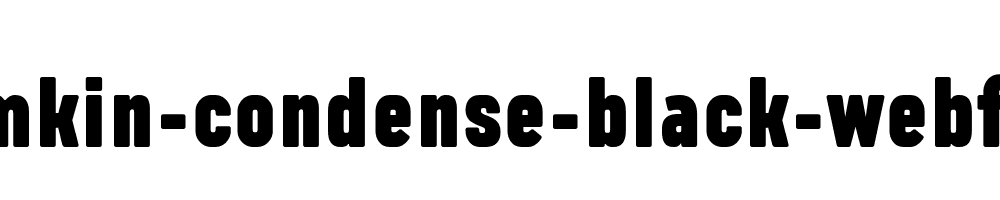
About tomkin-condense-black-webfont
The tomkin-condense-black-webfont is a bold and striking font that commands attention with its strong weight and condensed structure. The font features sharp angles and clean lines, giving it a modern and sleek appearance. The closed counters and sharp apex add to the font’s edgy and expressive nature, making it perfect for design projects that require a touch of boldness and sophistication. The font’s minimalistic design and lack of any extraneous elements contribute to its overall elegance and precision, exuding a sense of professionalism and refinement that is sure to leave a lasting impression. Classified as Serious – Friendly, the tomkin-condense-black-webfont strikes the perfect balance between being approachable and authoritative, making it suitable for a wide range of applications where a combination of sophistication and friendliness is desired. Its neutral yet expressive nature lends itself well to conveying a message that is clear and concise, while also allowing for a touch of personality to shine through. Overall, the tomkin-condense-black-webfont is a versatile and timeless font that will elevate any design project with its unique blend of style and substance.